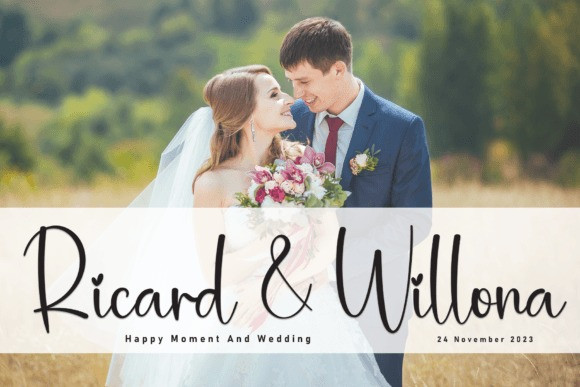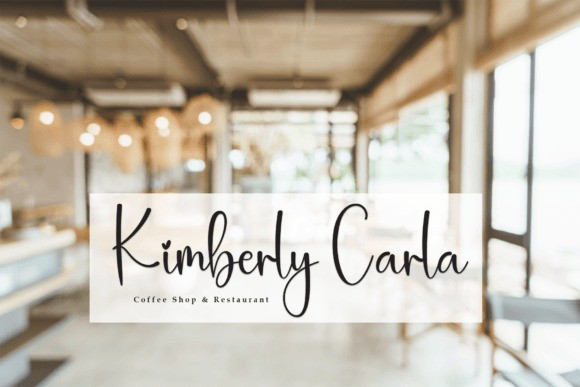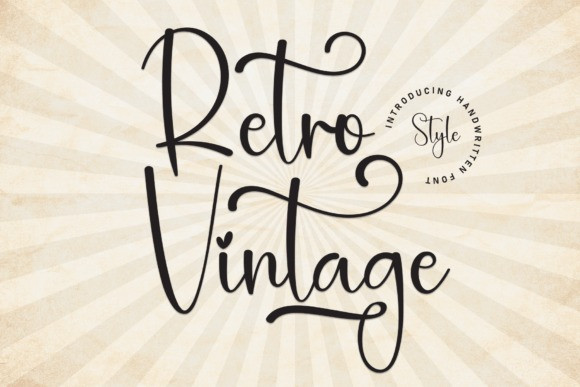
Retro Vintage Script Font
Retro Vintage Script Font is a charming handwritten font that effortlessly captures the essence of bygone eras. With its nostalgic flair and distinctive strokes, this font adds a touch of vintage charm to any project. Perfect for invitations, posters, and designs that crave a hint of the past, Retro Vintage brings a classic, handwritten feel that evokes a sense of timeless style.